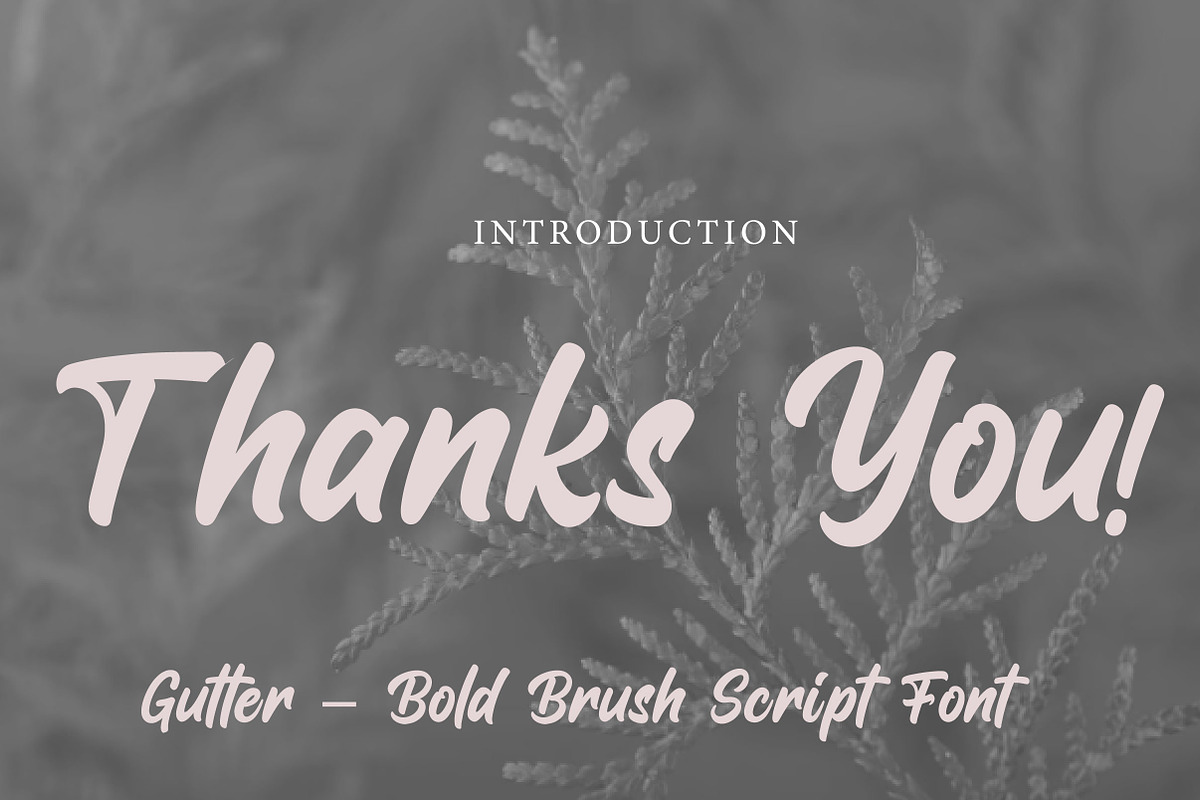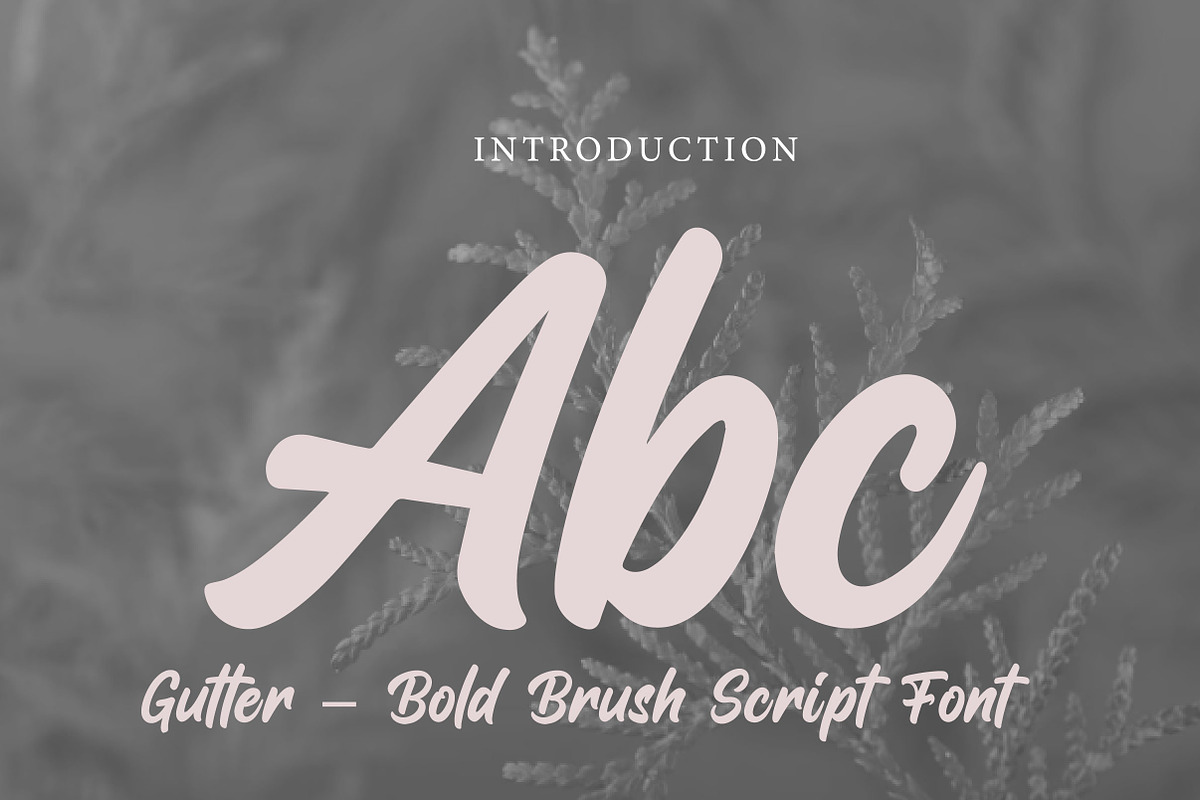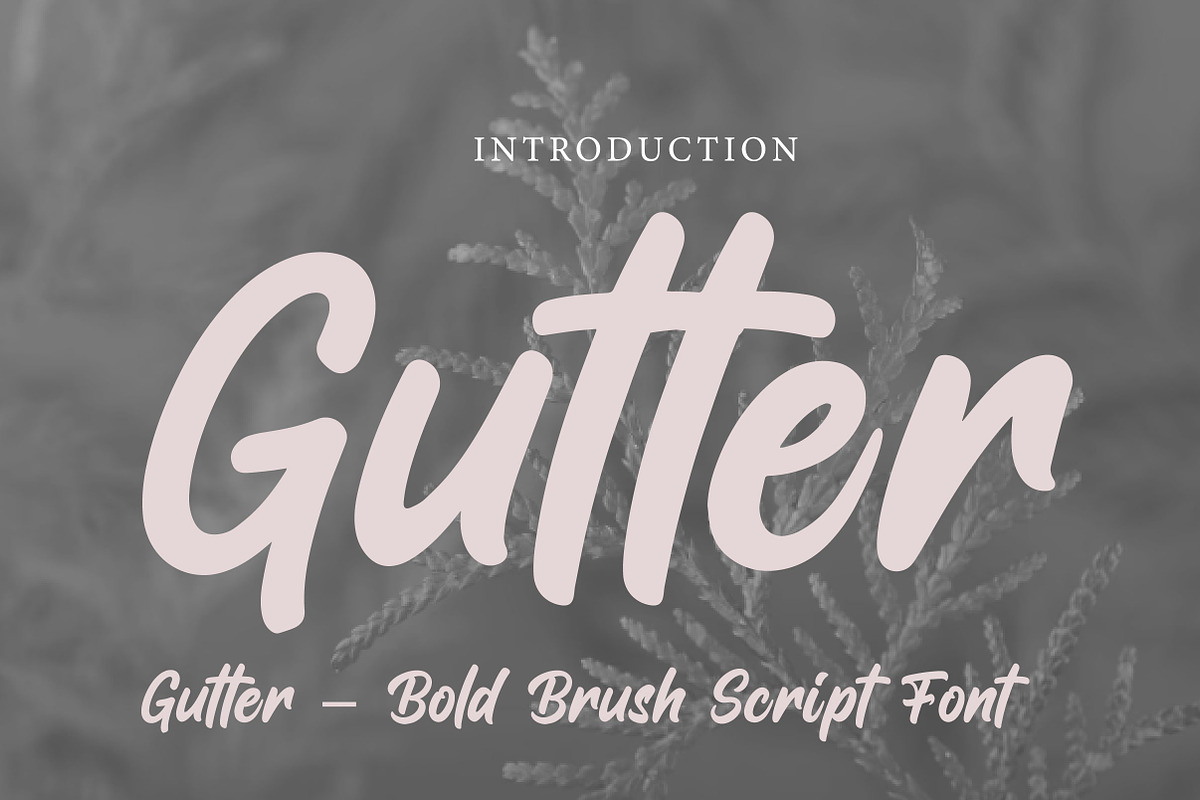
Gutter
Gutter – Bold Brush Script Font
Gutter is a bold and expressive brush script font with a strong handwritten feel, perfect for logos, branding, posters, apparel, and eye-catching creative projects.
Gutter is a powerful and dynamic brush script font designed to give your typography a bold and energetic personality. With its thick strokes, smooth curves, and hand-painted style, this font delivers a strong visual impact while maintaining a natural handwritten flow.
The expressive letterforms and slightly rough brush character make Gutter perfect for designs that need attitude, creativity, and movement. Whether you're working on branding, logos, posters, merchandise, packaging, or social media graphics, this font helps your text stand out with confidence and style.
Its modern brush style combines creativity with readability, making it suitable for both digital and print designs. Gutter is an excellent choice for designers who want a font that feels bold, artistic, and full of character.